Bold Slab Serif Fonts for Strong Visual Identities
Bold slab serif fonts are designed to take up visual space. Their heavy strokes, substantial serifs, and dense letterforms make them especially useful for logos, packaging, posters, editorial titles, and short website headlines.
From a branding perspective, a bold slab serif rarely disappears into the background. It establishes hierarchy quickly and can make a simple wordmark feel more grounded, confident, and recognizable.
The category is also more varied than it first appears. Some slab serifs are geometric and controlled, while others borrow from Clarendon typography, vintage signage, letterpress printing, Western lettering, or collegiate sports graphics.
The 20 fonts below cover that range. I have evaluated them according to their visual character, readability, spacing, scalability, and potential role within a wider brand system.
- Best overall: Regain
- Best for premium heritage branding: Ionicara Slab
- Best for compact bold wordmarks: Slab Series
- Best for modern sports graphics: Festad
- Best for long athletic names: Single
How I Picked These
I compared these bold slab serif fonts by headline readability, logo scalability, spacing, counter clarity, visual weight, thematic flexibility, and how well each option can create a strong focal point while still working inside a broader identity system.
20 Best Bold Slab Serif Fonts
1. Regain
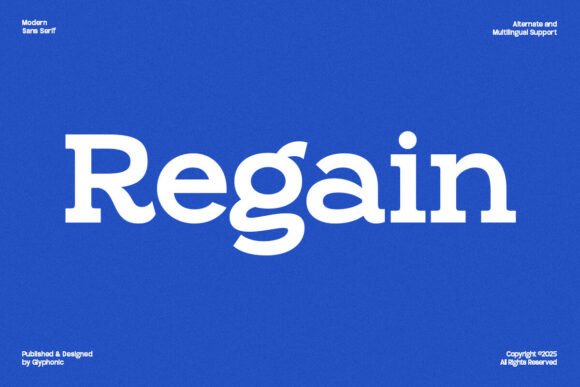
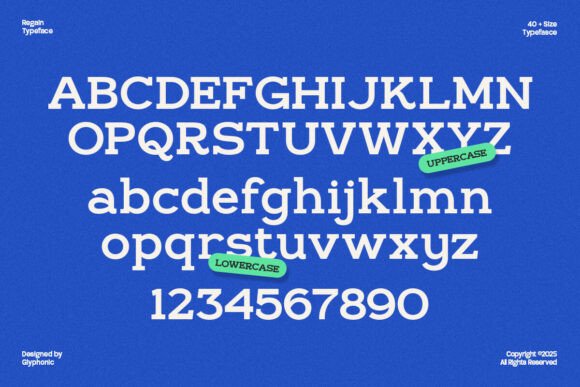
Regain is one of the more balanced bold slab serif fonts in this collection. It has the wide footprint and substantial weight expected from the category, but its overall structure feels cleaner and more current than many vintage-inspired alternatives.
From a branding perspective, that balance gives Regain useful flexibility. It can communicate strength without immediately making a logo feel Western, collegiate, or overly nostalgic.
I could see it supporting coffee packaging, apparel labels, workshop identities, food products, and assertive editorial headlines. Its letterforms feel sturdy rather than exaggerated, which is important when the typography needs to remain the central part of a logo.
Regain should also hold its shape reasonably well when a wordmark is reduced for social profiles or smaller packaging applications. Even so, the counters and spacing should always be tested with the actual brand name.
It is less appropriate for identities built around delicacy, luxury minimalism, or a highly technical visual language. In those settings, its physical weight may feel too informal or substantial.
Best for: Packaging, apparel logos, bold editorial headlines
Key features: Heavy construction, modern proportions, subtle vintage character
2. Ionicara Slab
Ionicara Slab has a more polished and formal presence. Its strong structure is softened by refined details, placing it somewhere between traditional display typography and contemporary identity design.
Visually, the typeface creates authority without feeling especially rough. That makes it relevant for restaurant identities, premium food packaging, publishing projects, heritage products, and boutique retail brands.
At larger sizes, the firm serifs create a strong horizontal rhythm. Short words should feel particularly stable because the visual weight is distributed evenly across the baseline.
I would keep the surrounding design restrained. Ionicara already contributes considerable personality, so it does not need ornamental borders, multiple decorative fonts, or an overly complex color system.
A quieter layout will allow the proportions and letterforms to do more of the branding work.
Best for: Heritage branding, publishing, premium packaging
Key features: Strong structure, refined details, classic proportions
3. Slab Series
Slab Series is a direct, display-oriented typeface with the straightforward impact many designers expect from a heavy slab serif.
Its blocky construction makes it suitable for short logos, product titles, badge designs, and prominent headings. The font feels most natural in projects where clarity and force matter more than subtlety.
Potential applications include barbershop branding, craft beverage labels, automotive graphics, tool companies, posters, and merchandise.
One practical advantage of this kind of typeface is that a single word can behave almost like a graphic symbol. A compact wordmark may not need an additional icon because the typography already creates a strong silhouette.
The main limitation is density. Longer phrases may become visually heavy, especially when set entirely in uppercase. Slightly looser tracking and shorter line lengths will help the individual letterforms remain visible.
Best for: Badges, product labels, compact wordmarks
Key features: Blocky serifs, dense visual weight, direct display character
4. Rambone
Which slab serif fonts are best for headlines?
Regain, Ionicara Slab, Fatrix, Rambone, Slab Series, and Windy City Slab are strong headline options. Condensed fonts such as Single are useful when a long headline must fit into a narrow layout.
What font should I pair with a bold slab serif?
A neutral sans serif is usually the easiest pairing. It provides readable body text and creates contrast without competing with the slab serifโs heavy shapes. Geometric sans serifs feel more modern, while humanist sans serifs produce a softer combination.